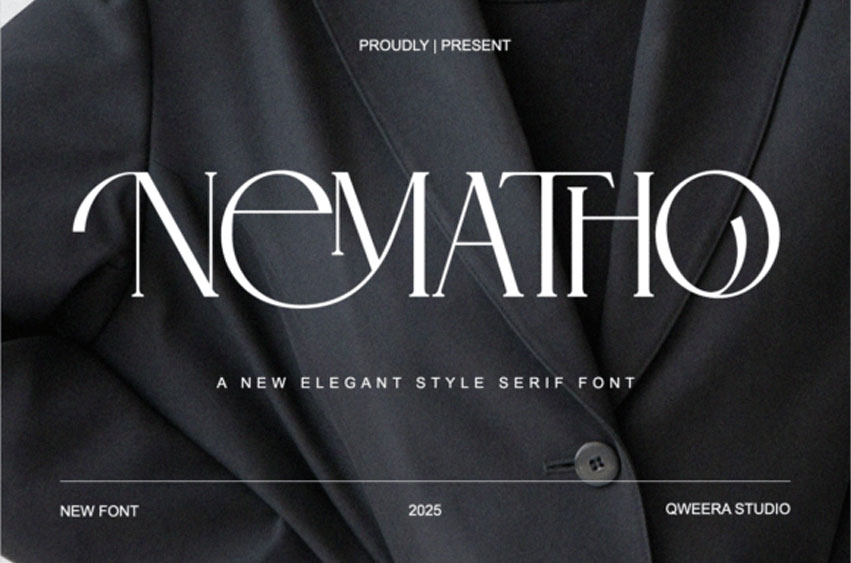
Nematho Font
Nematho Font is a sleek, modern serif font with elegant styling and striking ligatures, crafted for high-fashion aesthetics and luxury branding.
With its clean lines, refined curves, and distinctive character shapes, Nematho commands attention in editorial layouts, lookbooks, logos, and minimalist designs. Its tall, slender proportions and unique forms give it a timeless sophistication and a cutting-edge presence.
Perfect for fashion houses, upscale product packaging, wedding monograms, and modern lifestyle brands, Nematho is more than a font – it’s a visual statement. Every letter is carefully designed to deliver clarity with flair, making your typography look effortlessly chic and bold.